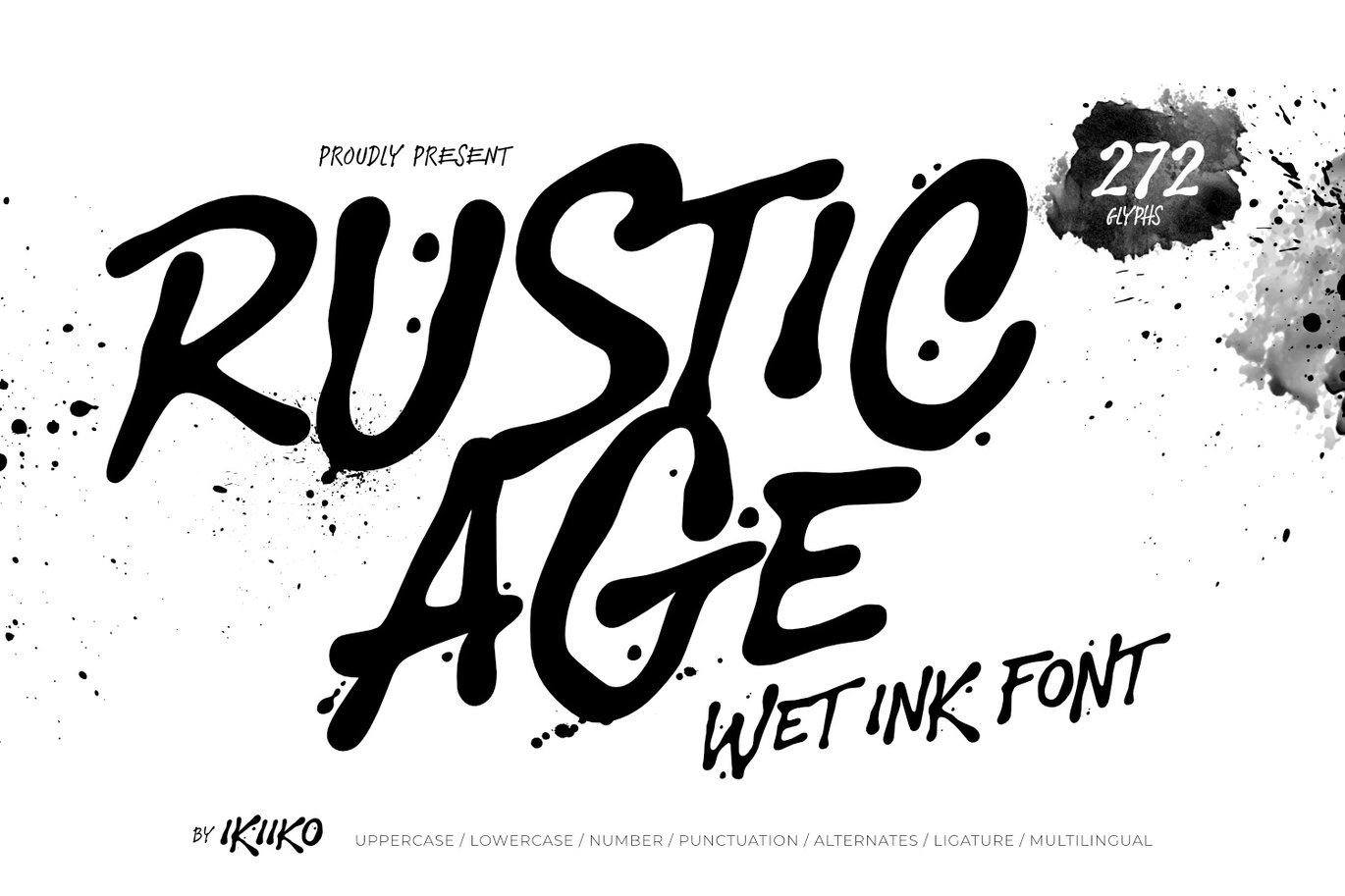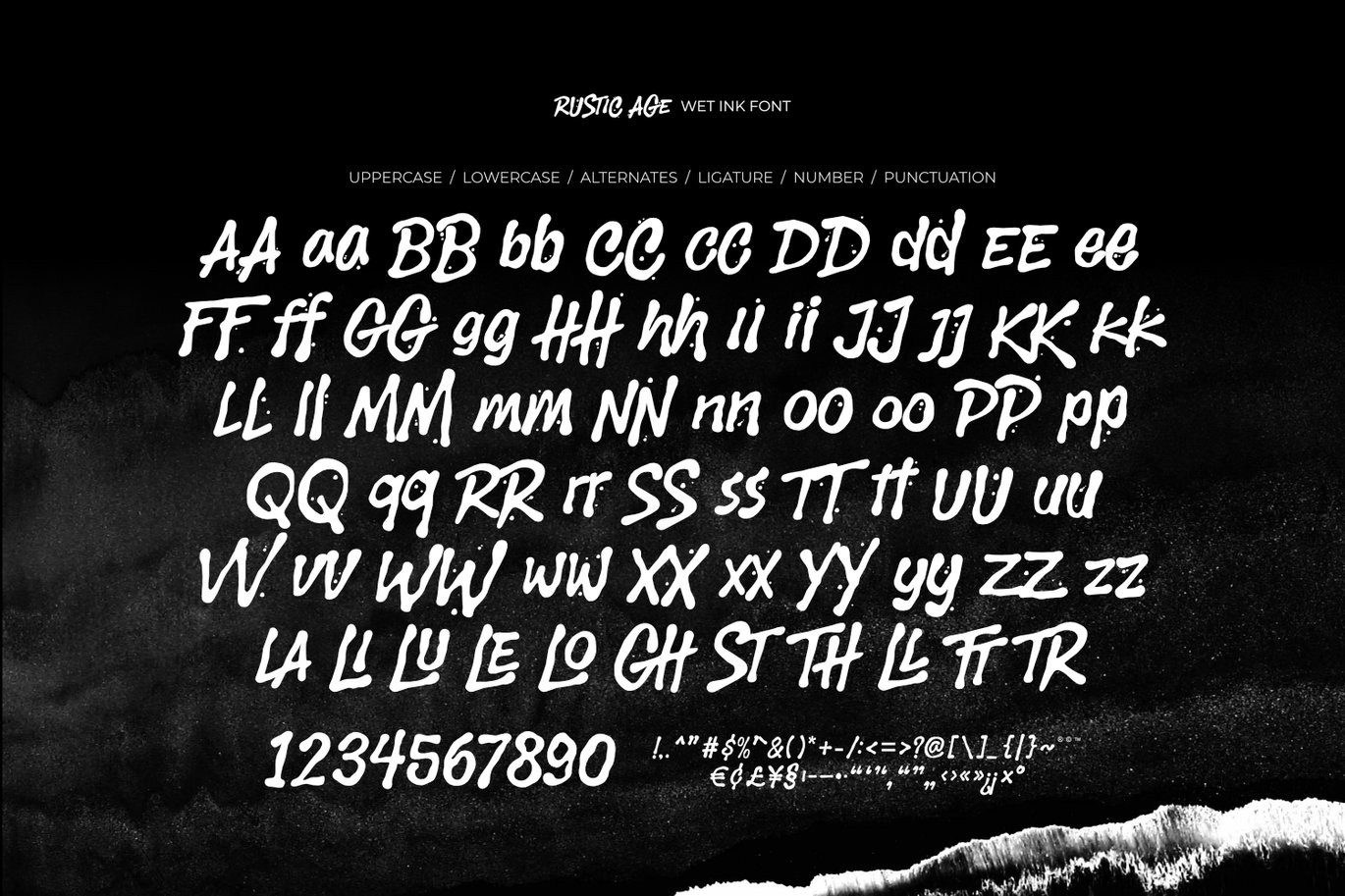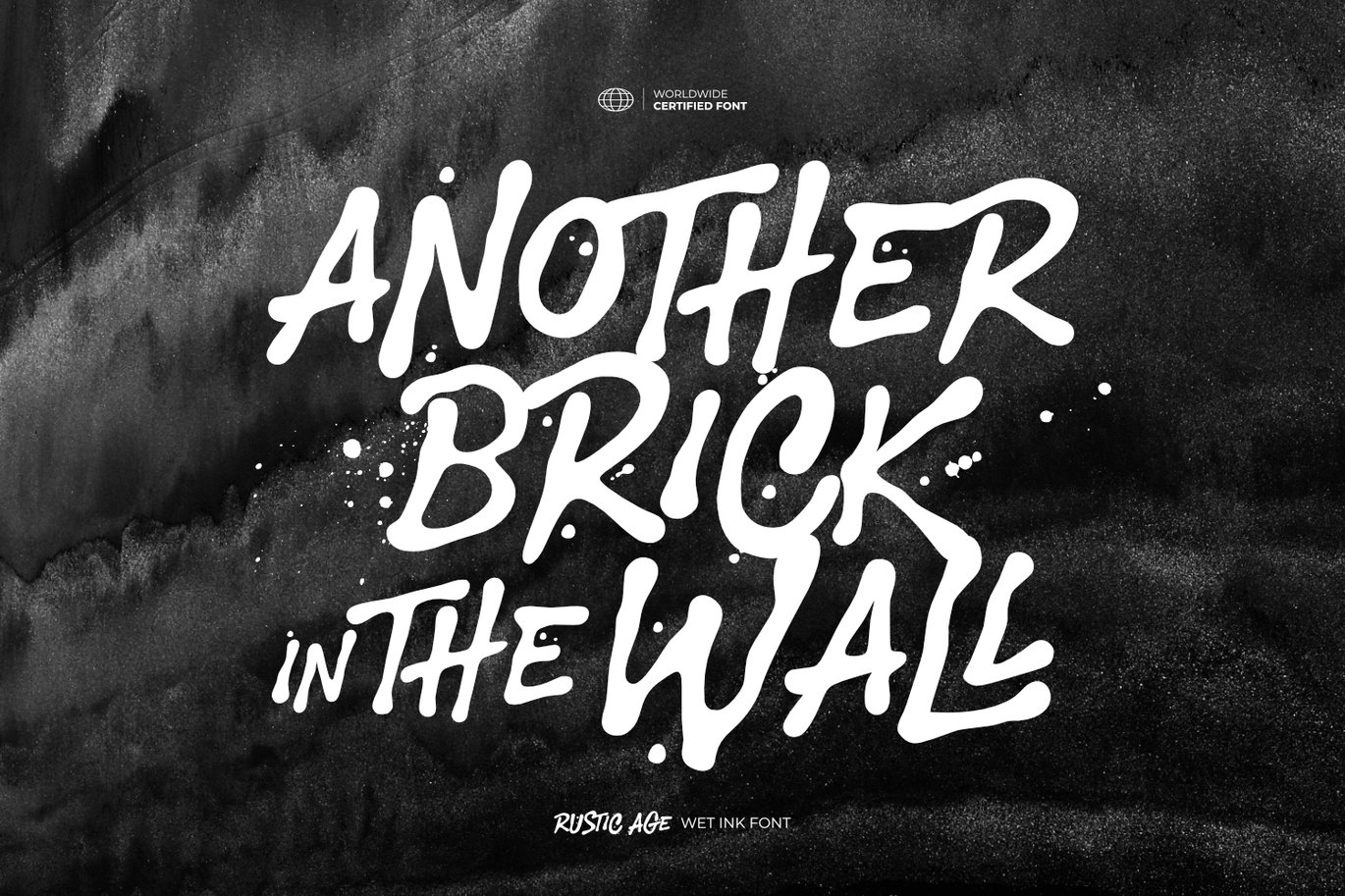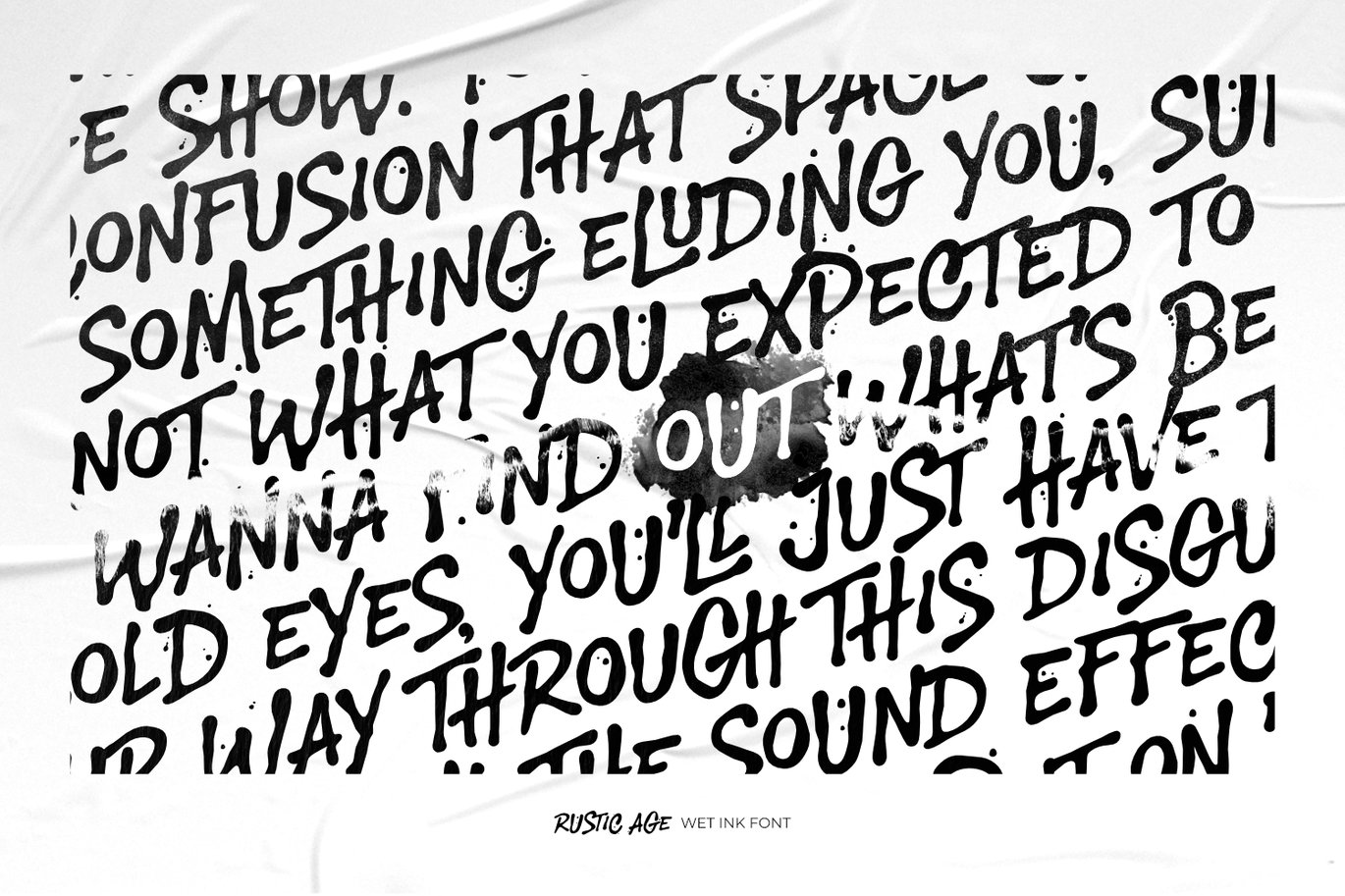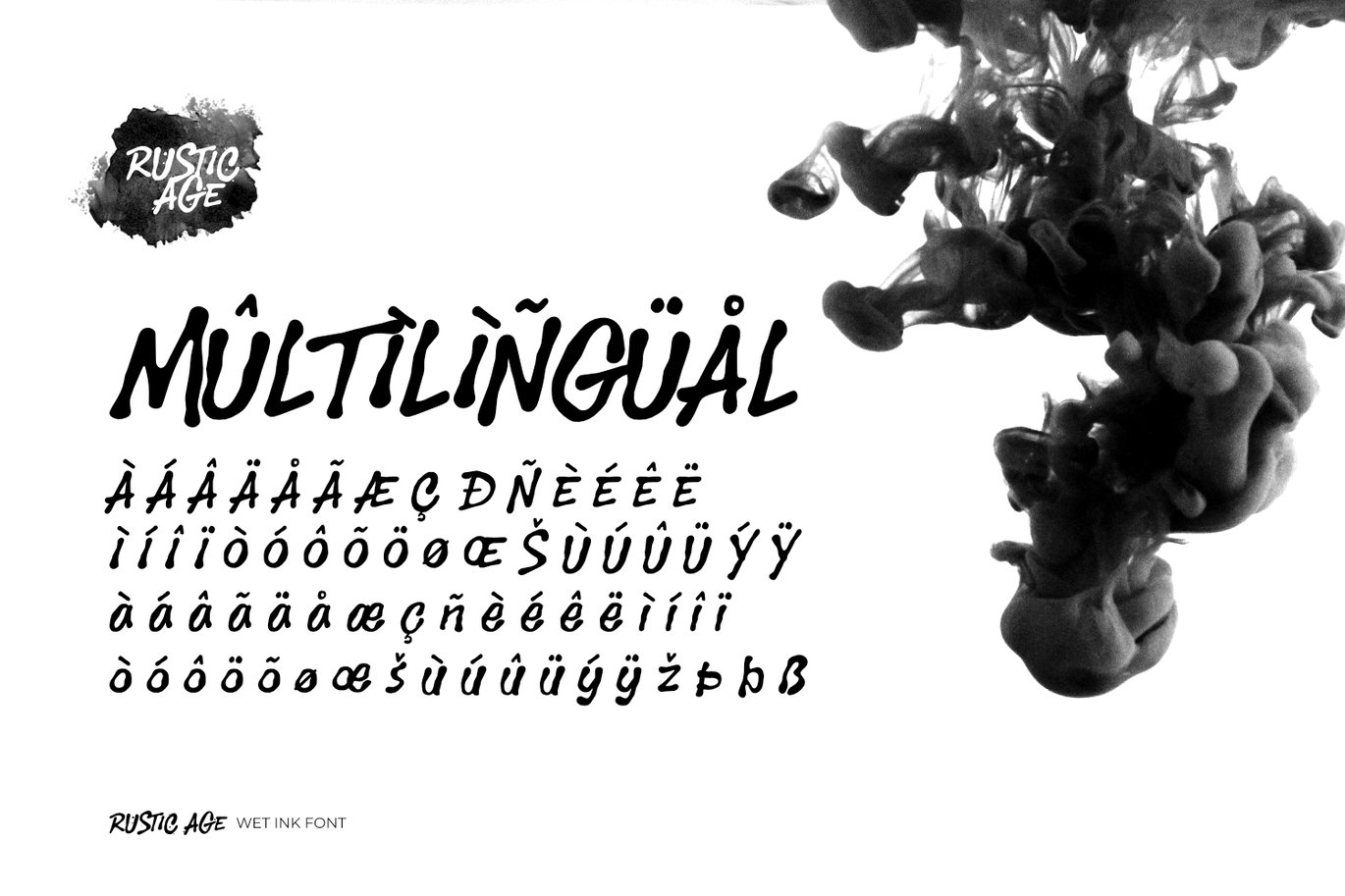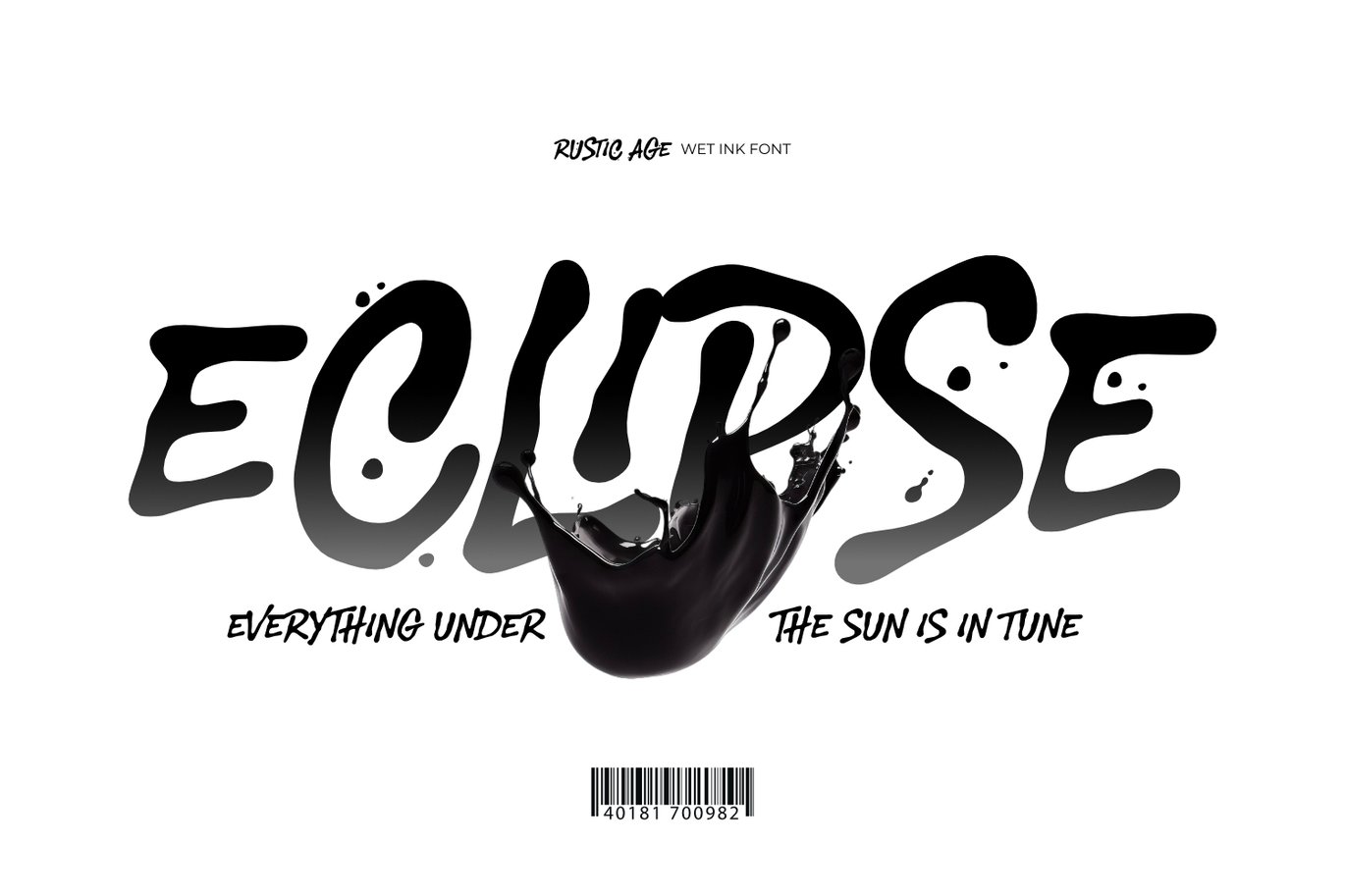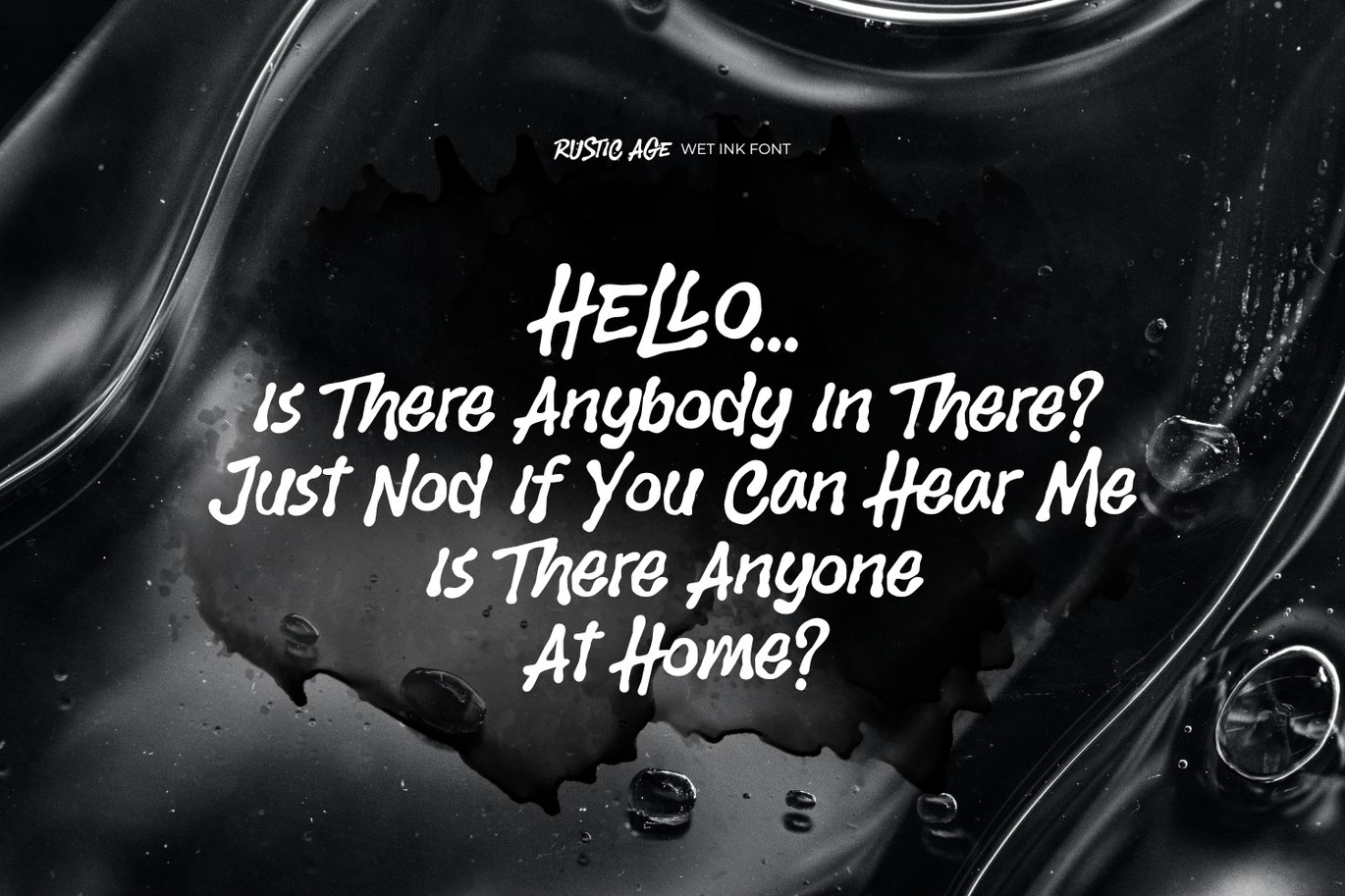
Rustic Age – Wet Ink Font
Proudly present Rustic Age – Wet Ink Font, created by ikiiko.
Rustic Age is an energetic wet ink font that encapsulates the bold vibrancy of the 80s. Its design mimics the fluidity of liquid ink, creating the effect of dynamic black ink splashes dancing across the page. This typeface is ideal for projects seeking to capture attention with its artistic and expressive flair. With its unique blend of nostalgia and modernity, Rustic Age adds a splashy, distinctive aesthetic to posters, branding, and creative displays, making every design come alive with its lively character.
This font is very suitable for making a streetwear brand, poster, movie title, magazine layout, fashion design, quotes, or simply as a stylish text overlay to any background image.